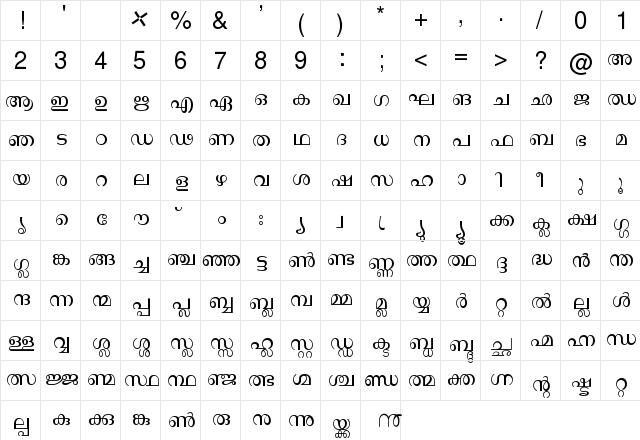
RachanaKarthika Book
Design Context for RachanaKarthika Typeface
RachanaKarthika is a composed and adaptable typeface that performs quietly and consistently across a wide range of design contexts.